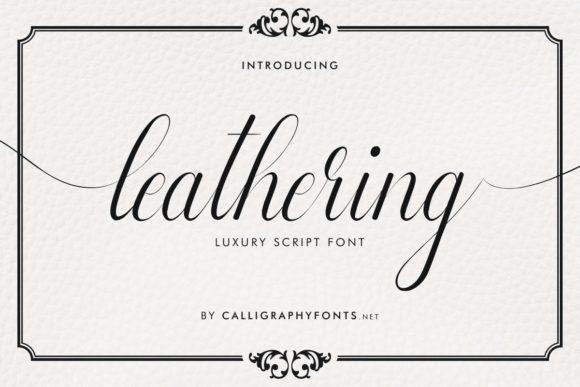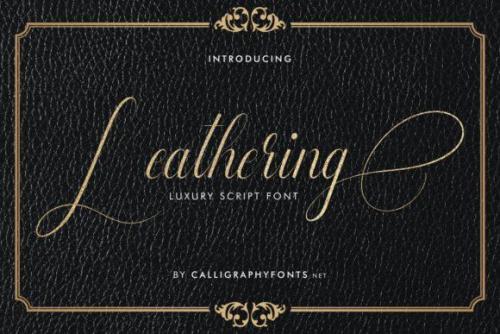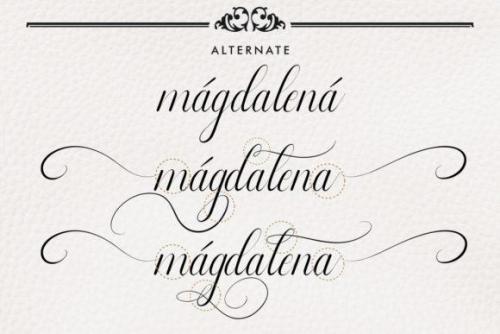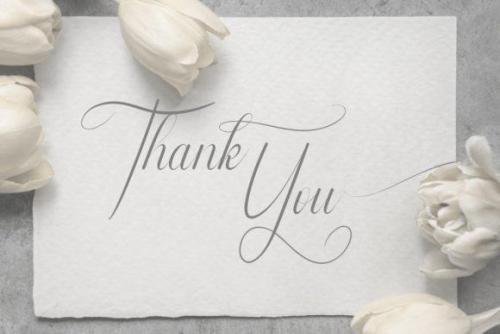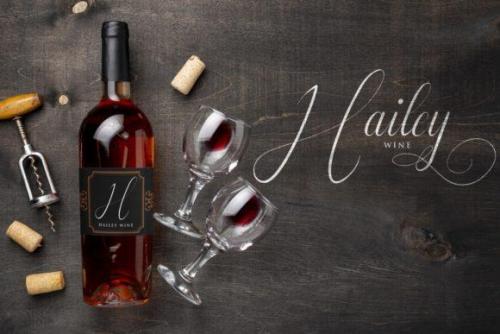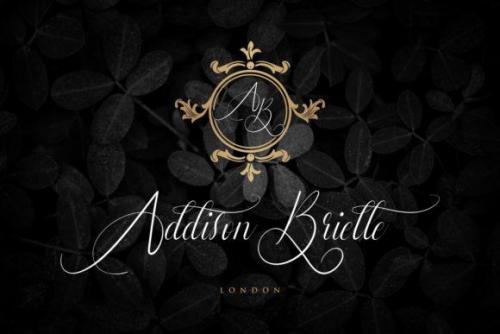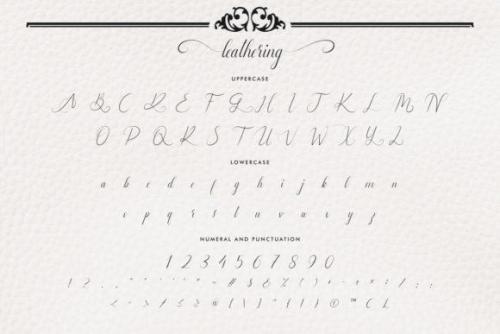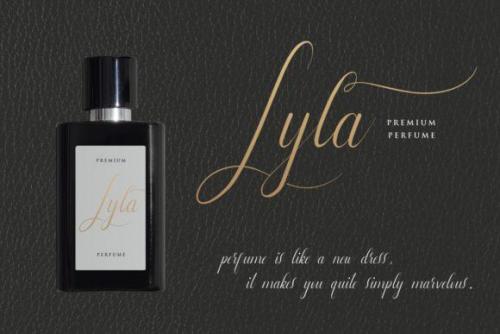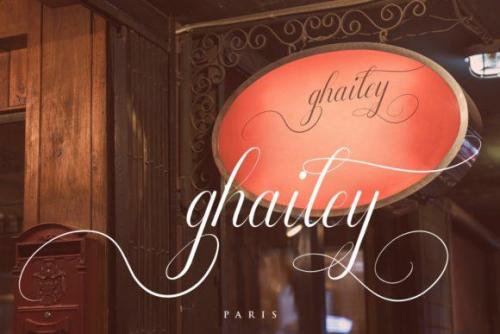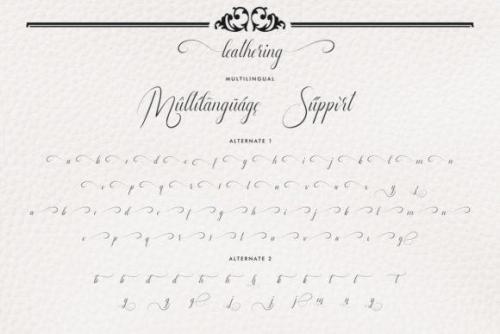
Leathering is an elegant and sophisticated script font, ideal for your most favorite projects. Fall in love with its unique and distinct style and create breathtaking wedding invitations, birthday cards and more.
This font is PUA encoded which means you can access all of the glyphs and swashes with ease!